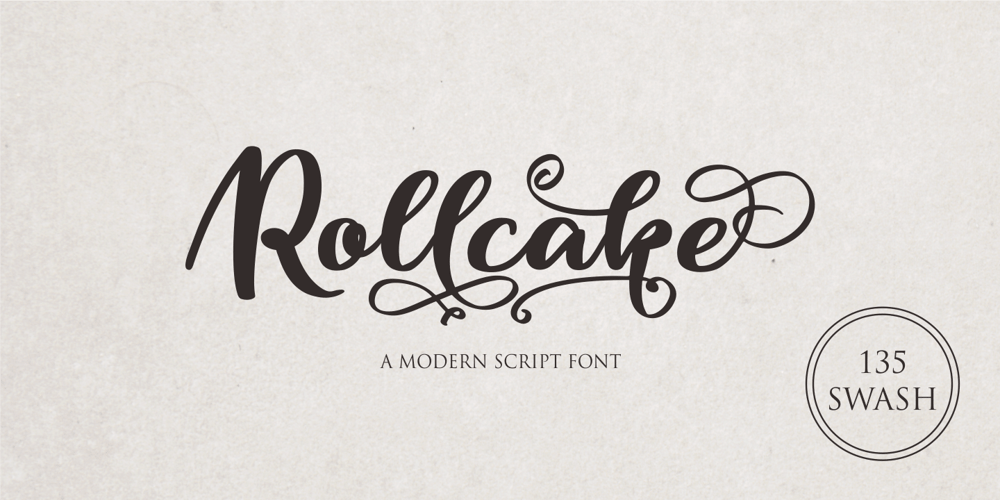
Rollcake
Rollcake font
Rollcake Font Family was designed by Siti Nurjanah and published by NJ Studio. Rollcake contains 1 styles and family package options. Hi…Thank for your visit :)Rollcake Modern Script Fonts are font designs that are made for various vector designs, printing such as digital wedding invitations, blogs, online shops, social media, while printing can be used in the field of product clothing, accessories, bags, pins, logos, business cards, watermarks and many others …Rollcake is equipped with complete alternates and very beautiful ligature, so it can make your product look elegant and attractive,and also Multilingual support!!!Happy design …